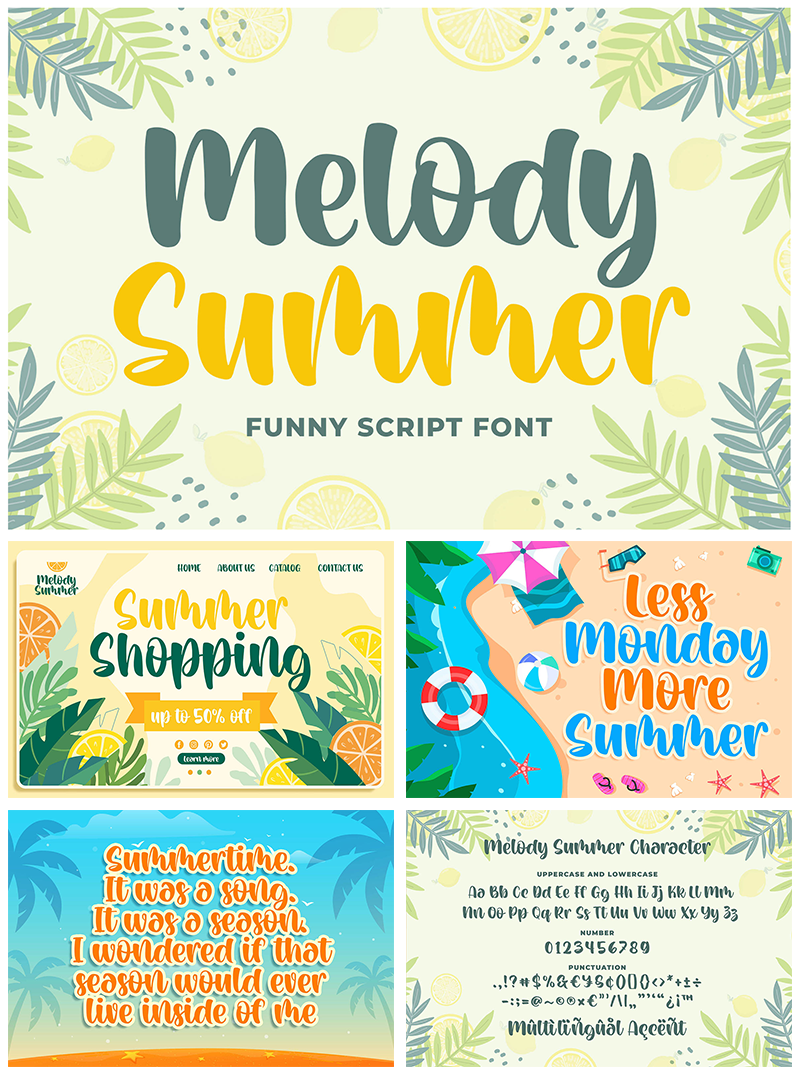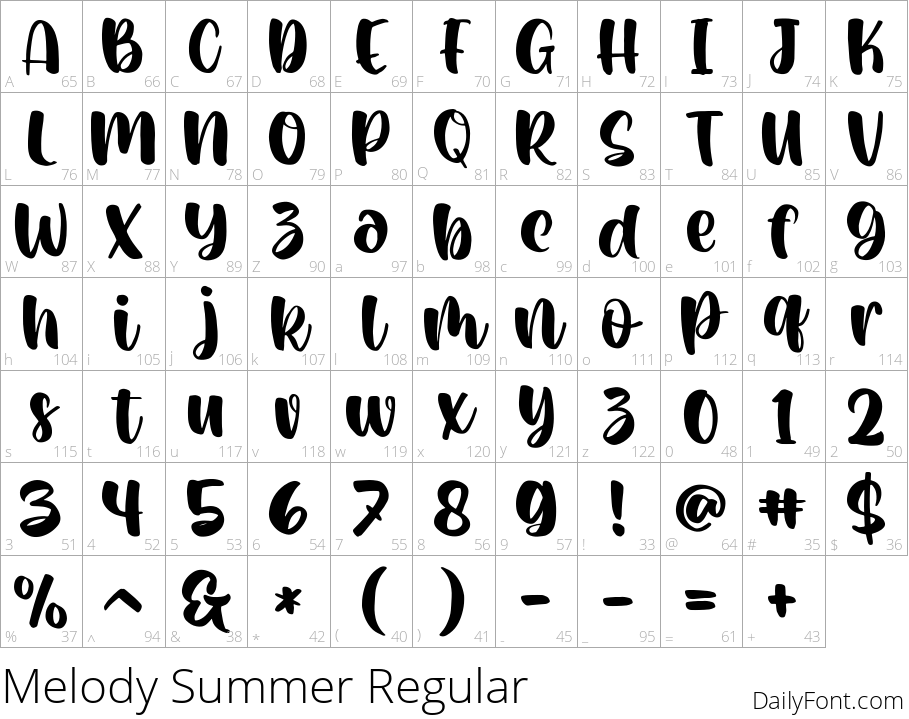
Melody Summer
Melody Summer is a stunning handwritten font that exudes charm and elegance. With its flowing lines and playful curves, this typeface brings a cheerful vibe to any design project. Perfect for invitations, greeting cards, or personalized branding, Melody Summer is sure to inspire creativity and add a unique touch to your work. Its versatility enables it to shine in both digital and print formats, making it an essential addition to any designer's toolkit. Whether you're crafting a whimsical poster or designing a heartfelt message, this font will elevate your designs and captivate your audience. Experience the joyful spirit of Melody Summer and let your creativity flow.